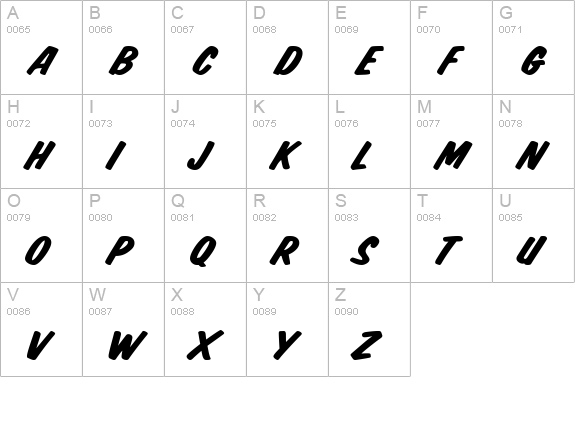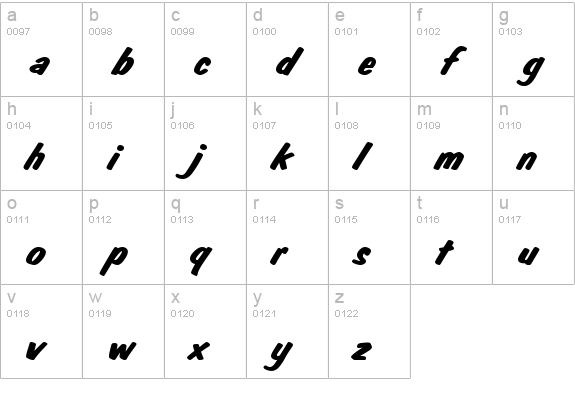
Jest Solid Font Details
Introducing Jest Solid font, a versatile and modern typeface designed to make your projects stand out. With its clean lines and bold appearance, Jest Solid is perfect for a wide range of design applications, from branding to posters to web design. This font exudes a sense of strength and confidence, making it ideal for conveying bold messages and making a strong visual impact. What's even better is that Jest Solid font is available for free download at FontsMarket.com. Simply head over to the website to grab this stylish and impactful typeface for your next project. Don't miss out on the opportunity to elevate your designs with the striking presence of Jest Solid font.